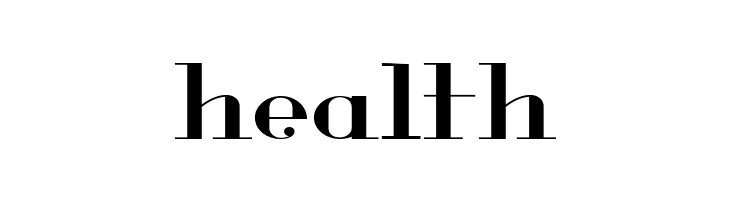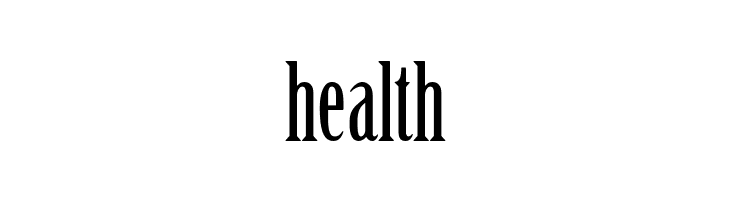
A quirky, hand-drawn font with elongated, irregular strokes and a whimsical style.
A bold, flowing script font with a shadow effect, mimicking elegant handwriting.
A bold, hand-drawn font with a playful and energetic style.
A bold, expressive handwritten font with a playful, brush-like style.
A bold, italic script font with dynamic, flowing strokes.
An elegant, oblique font with a calligraphic influence and flowing style.
A textured, playful font with a chalk-like appearance.
A bold, handwritten font with a dynamic and energetic style.
A playful, hand-drawn display font with a cartoonish style.
A bold, geometric font with vintage railway-inspired design.
A classic serif font with a refined and elegant appearance.
A bold serif font with strong strokes and a classic, elegant style.